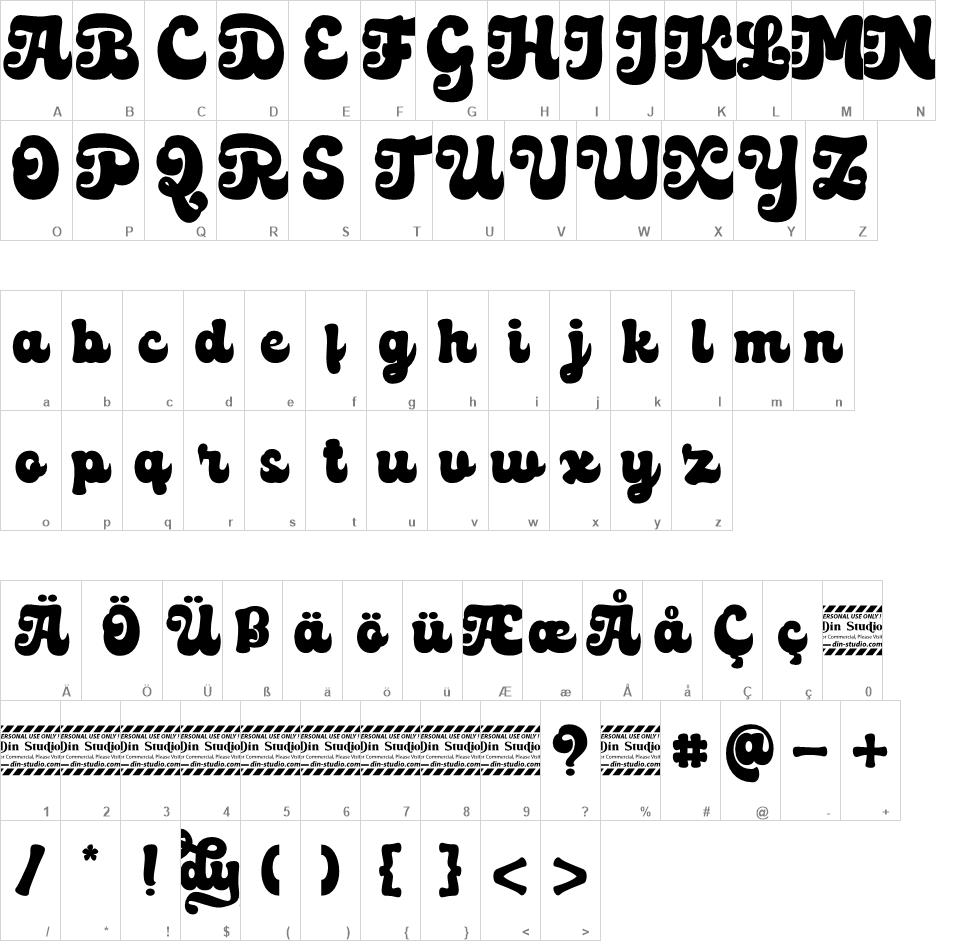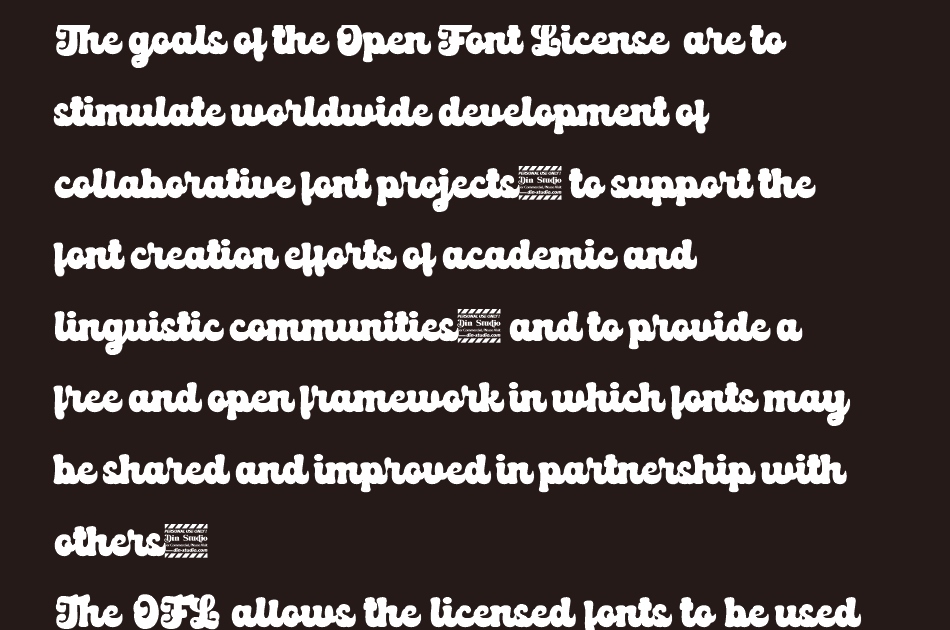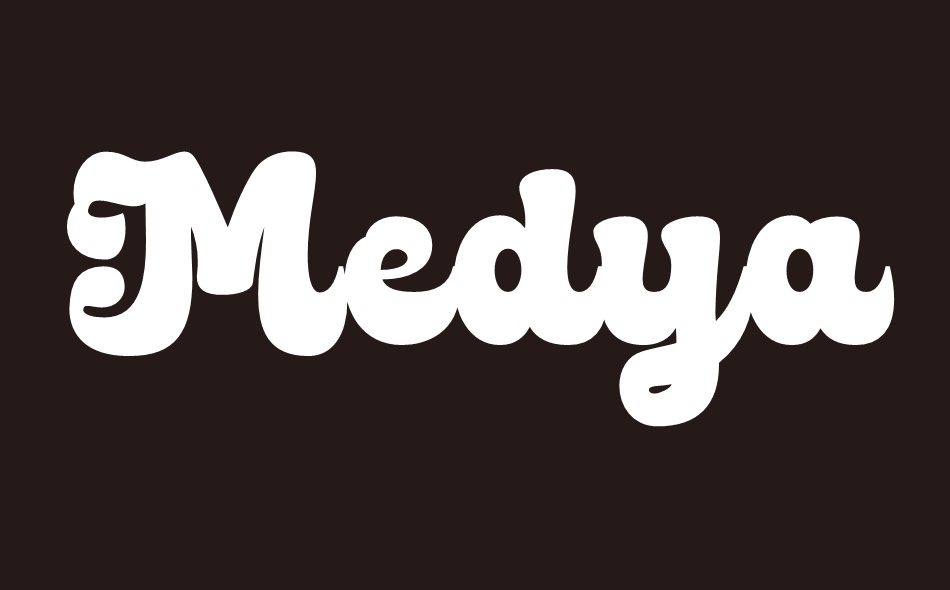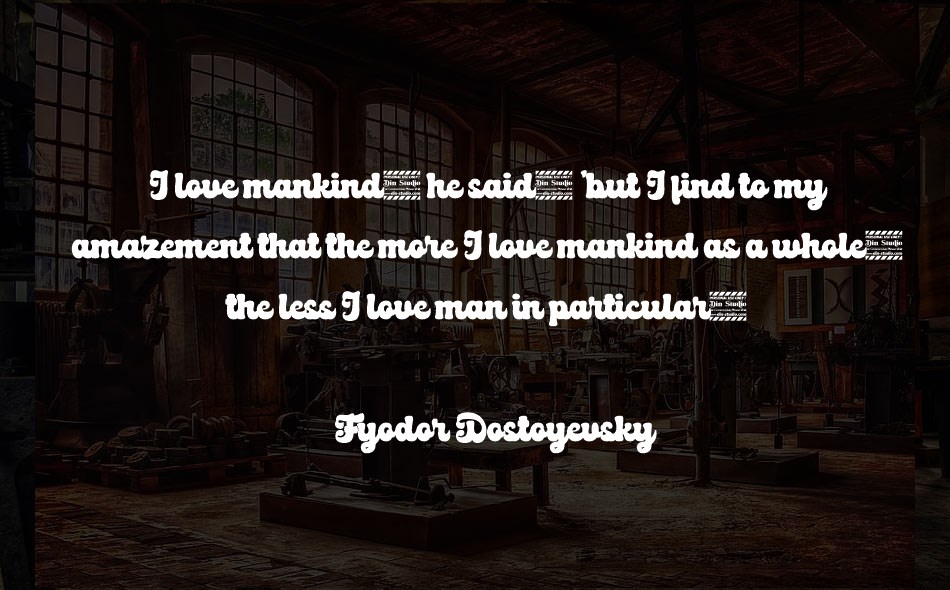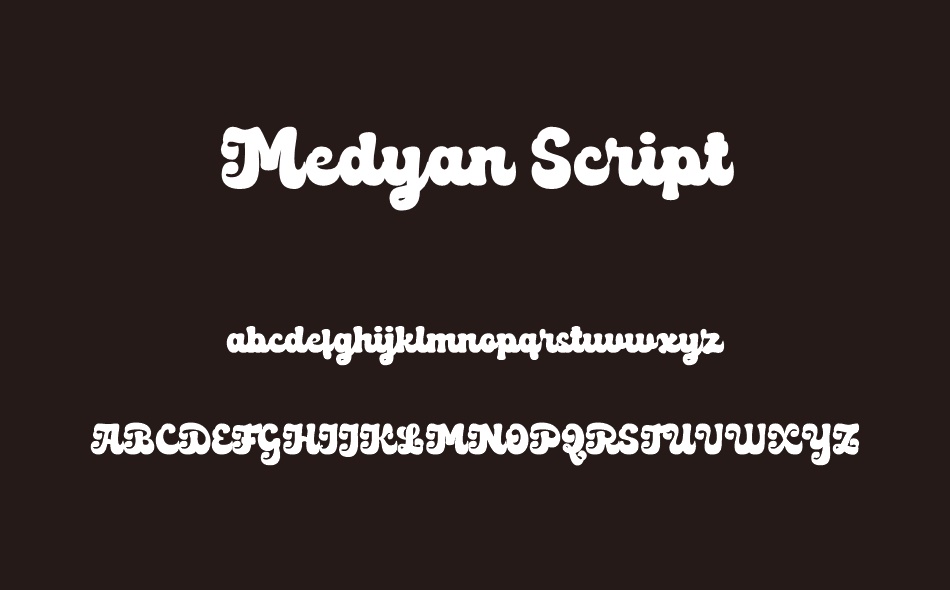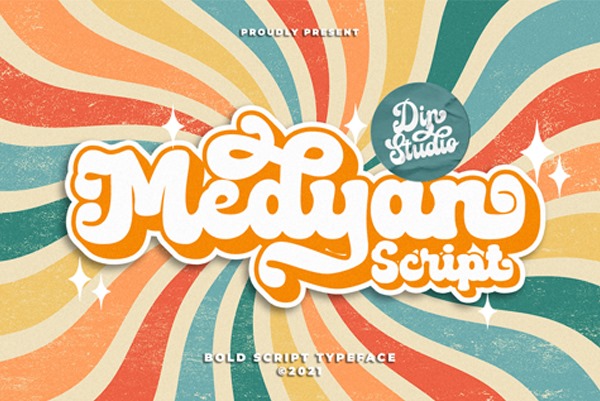
Medyan Script font
Medyan Script is a captive font designed with strong outlines and fat strokes to bring your branding to
life and add a touch of modernity, fun and style. This font features thick and angular letters that easy on the eyes and nice to look while its also easy to read. Medyan Script becomes more special with
extruding version option. Perfect to create amazing headings, logos, menus, social media graphics, and